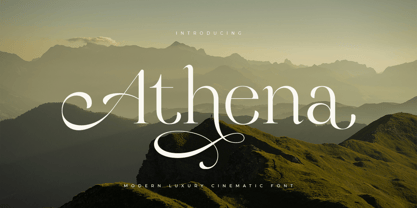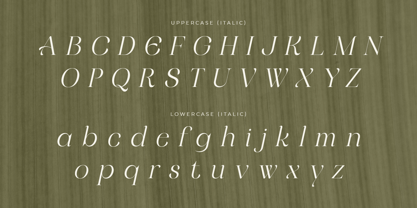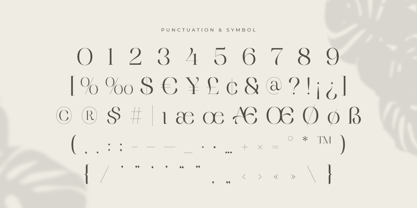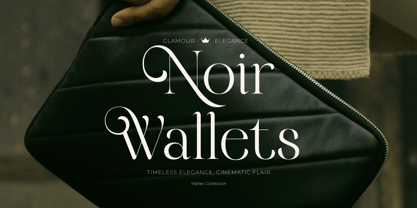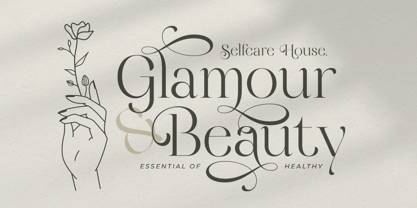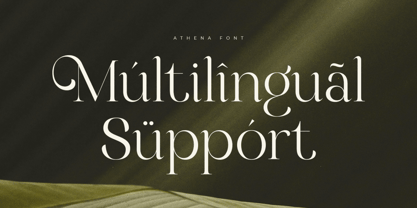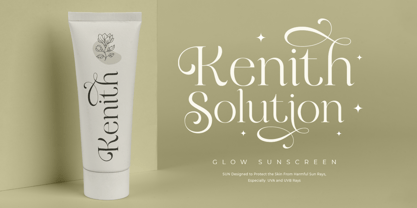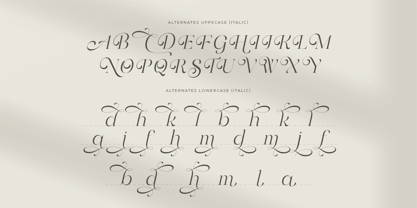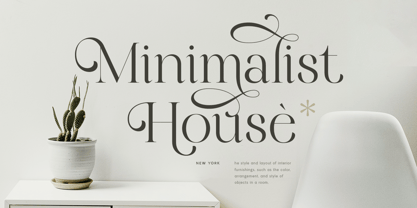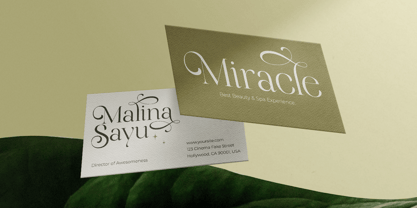
Athena SS
by Sensatype Studio
The Athena SS Font Family was designed by Zamroni Hamzah and published by Sensatype Studio. Athena SS contains 2 styles and family package options. More about this family
Athena - Modern Luxury Cinematic Font
Athena is a modern luxury cinematic font crafted to bring sophistication and elegance to your design projects. Its sleek lines and stylish characters make it perfect for high-end branding, cinematic titles, and luxurious packaging. The design of Athena reflects a commitment to quality and attention to detail, ensuring your projects stand out with a touch of modern elegance.
The creation of Athena began with the desire to merge modern aesthetics with cinematic luxury. Inspired by classic beauty and contemporary trends, Athena offers unique alternate characters that add versatility to your designs. Whether you're creating logos, movie titles, or editorial layouts, Athena's luxurious feel and cinematic appeal make it an ideal choice for various design needs.
Athena is packed with features to support your creative vision. It includes alternate characters, punctuation, numbers, and symbols, making it versatile and compatible with different platforms and software. With multilingual support and opentype features, Athena is designed to meet the diverse needs of designers around the world.
Athena Modern Luxury Cinematic Font Features:
• Alternates Characters Ready
• Punctuation, Number, and Symbol
• Uppercase and Lowercase
• Multilingual Support
• Opentype Features
Designers: Zamroni Hamzah
Foundry: Sensatype Studio